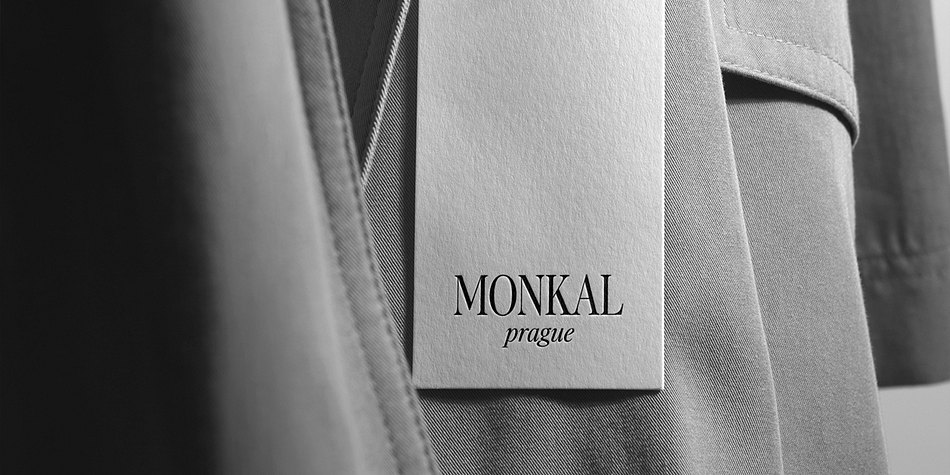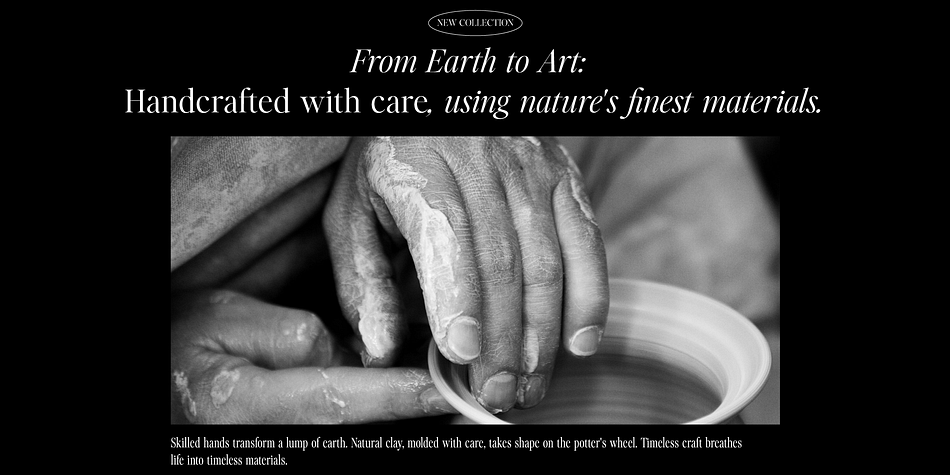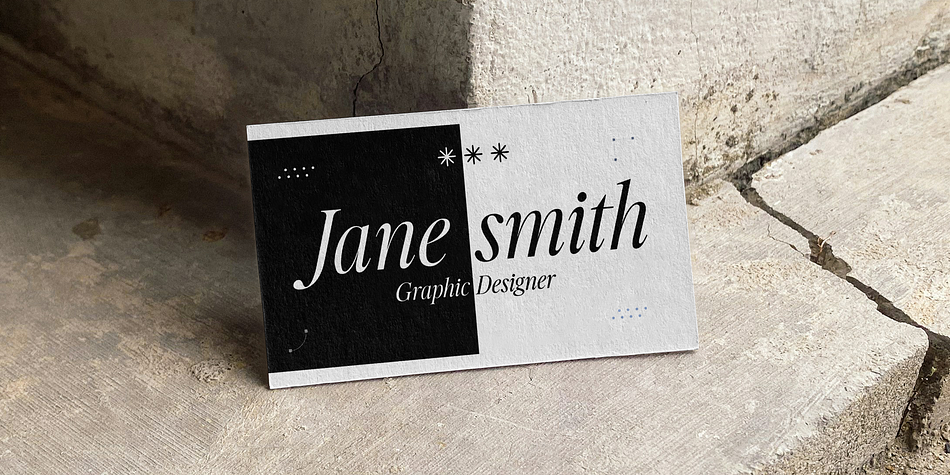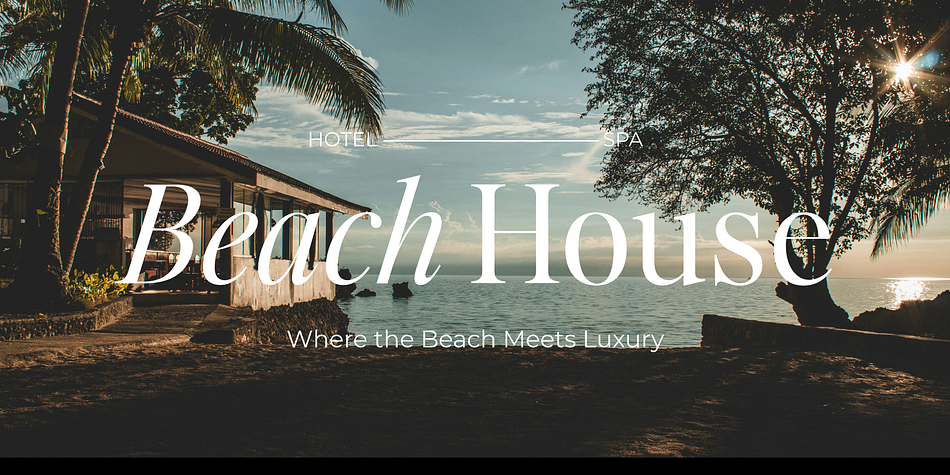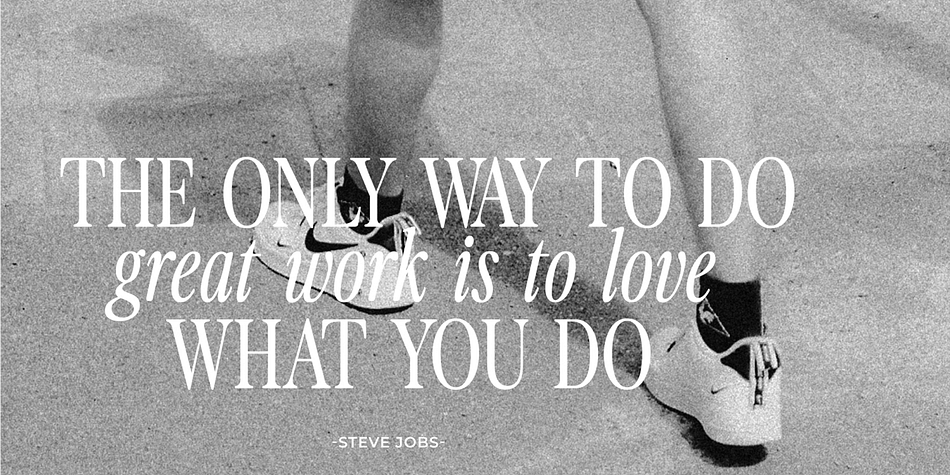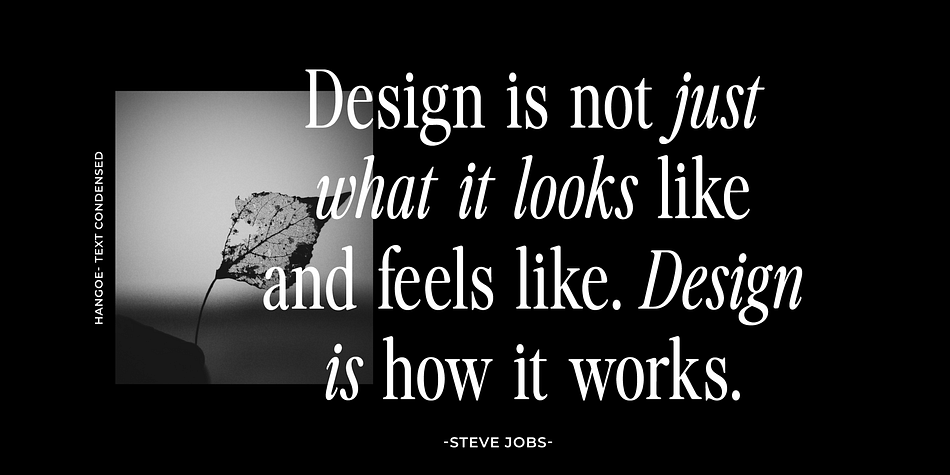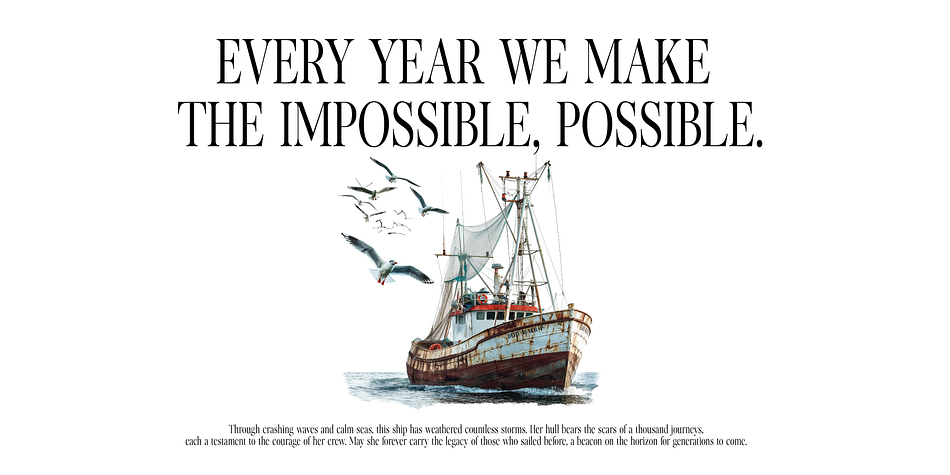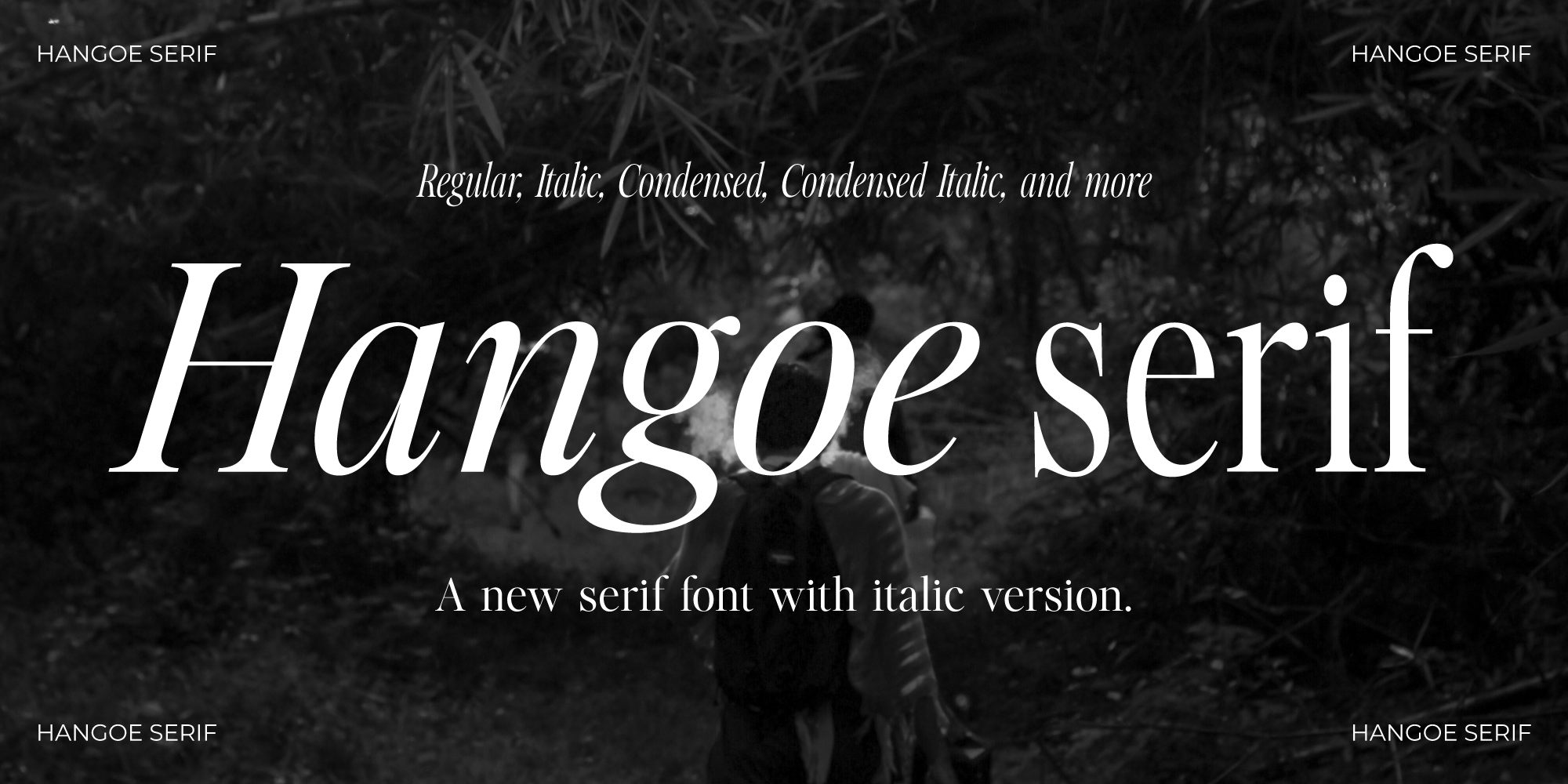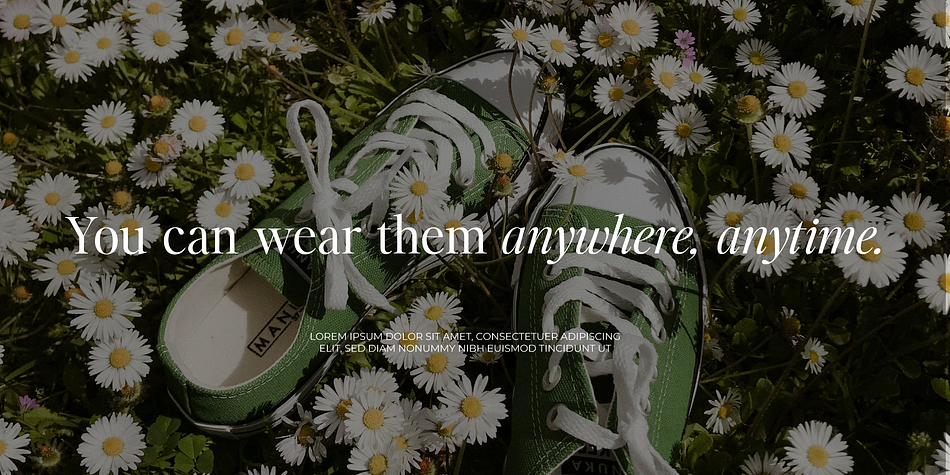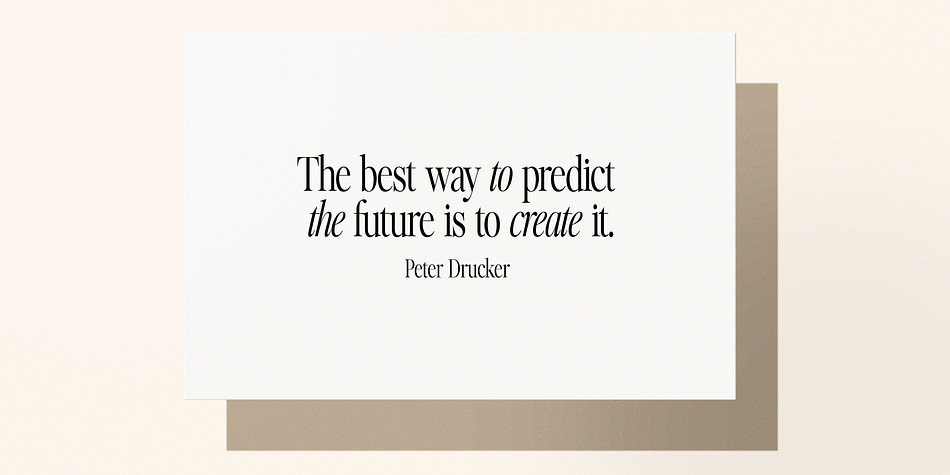
Hangoe
Hangoe is a serif font family. This typeface has eight styles and was published by IssamType.
Meet Hangoe, a sophisticated serif typeface designed to elevate your projects with its classic elegance and modern versatility.Hangoe comes in eight styles: Regular, Italic, Condensed, Condensed Italic, Text, Text Italic, Text Condensed, and Text Condensed Italic.
Perfect for branding, logos, editorial designs, and invitations, Hangoe offers clean lines and a timeless aesthetic.
OpenType Features: Kerning, Ligatures, Stylistic Sets
Character Set: Uppercase, numbers, punctuation, ligatures, multilingual support